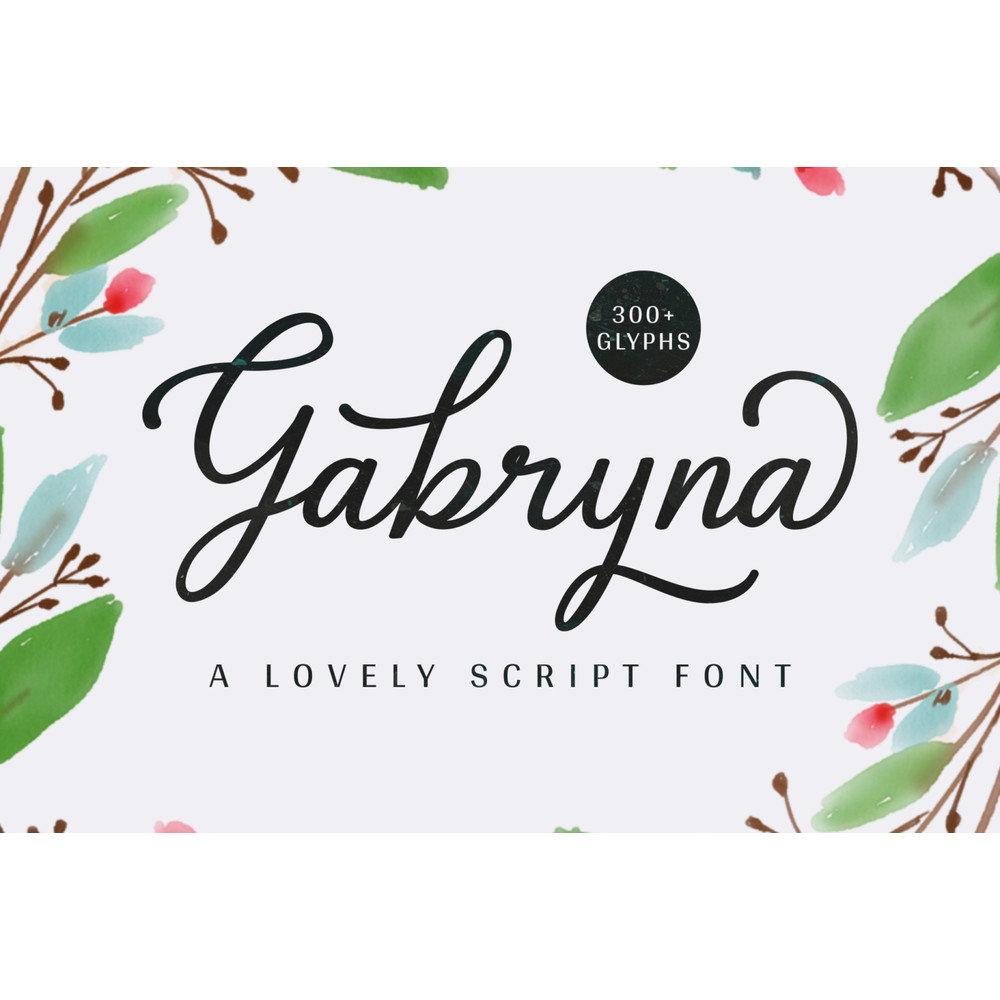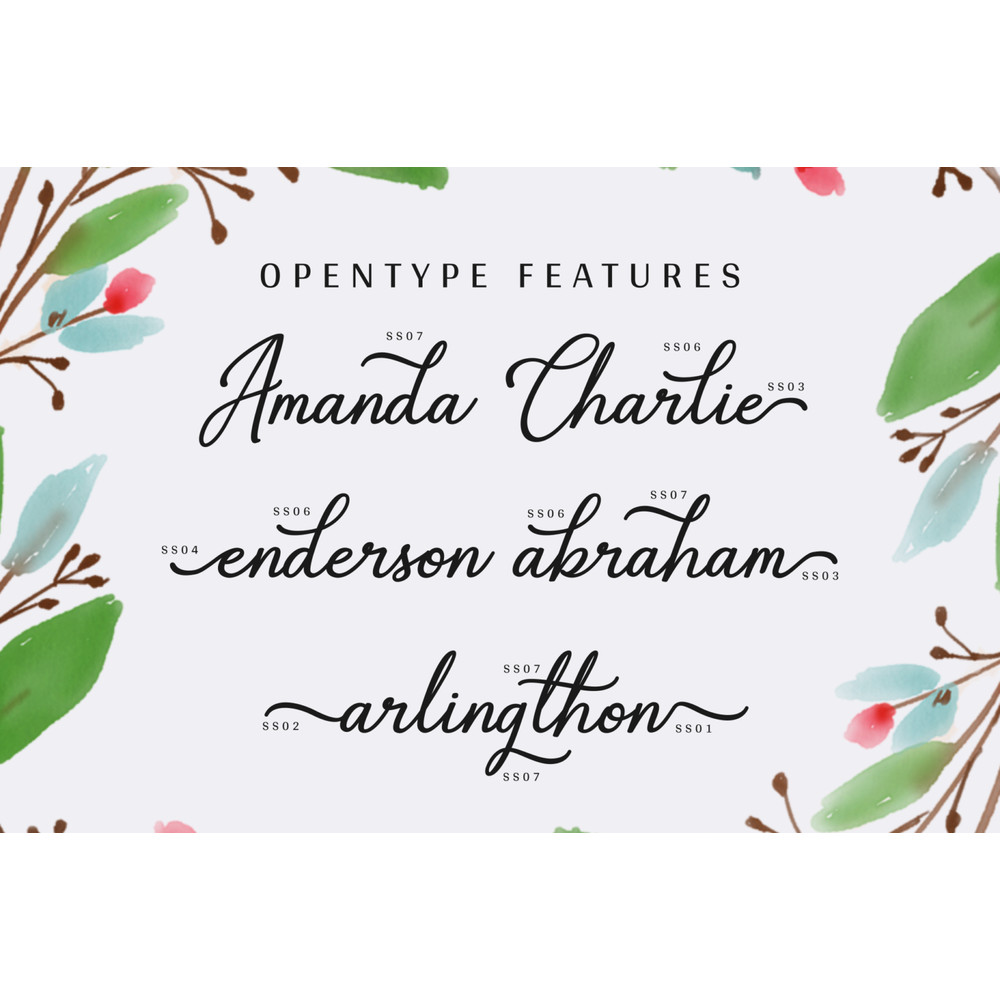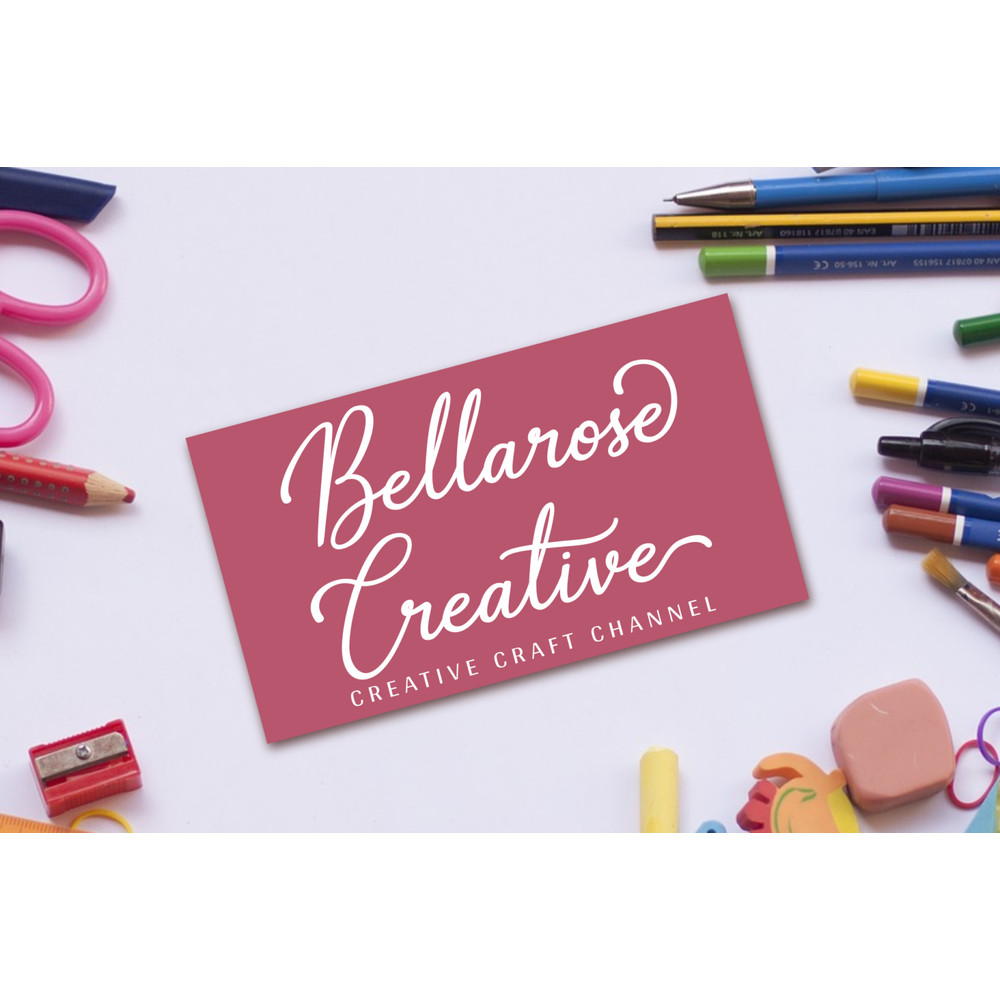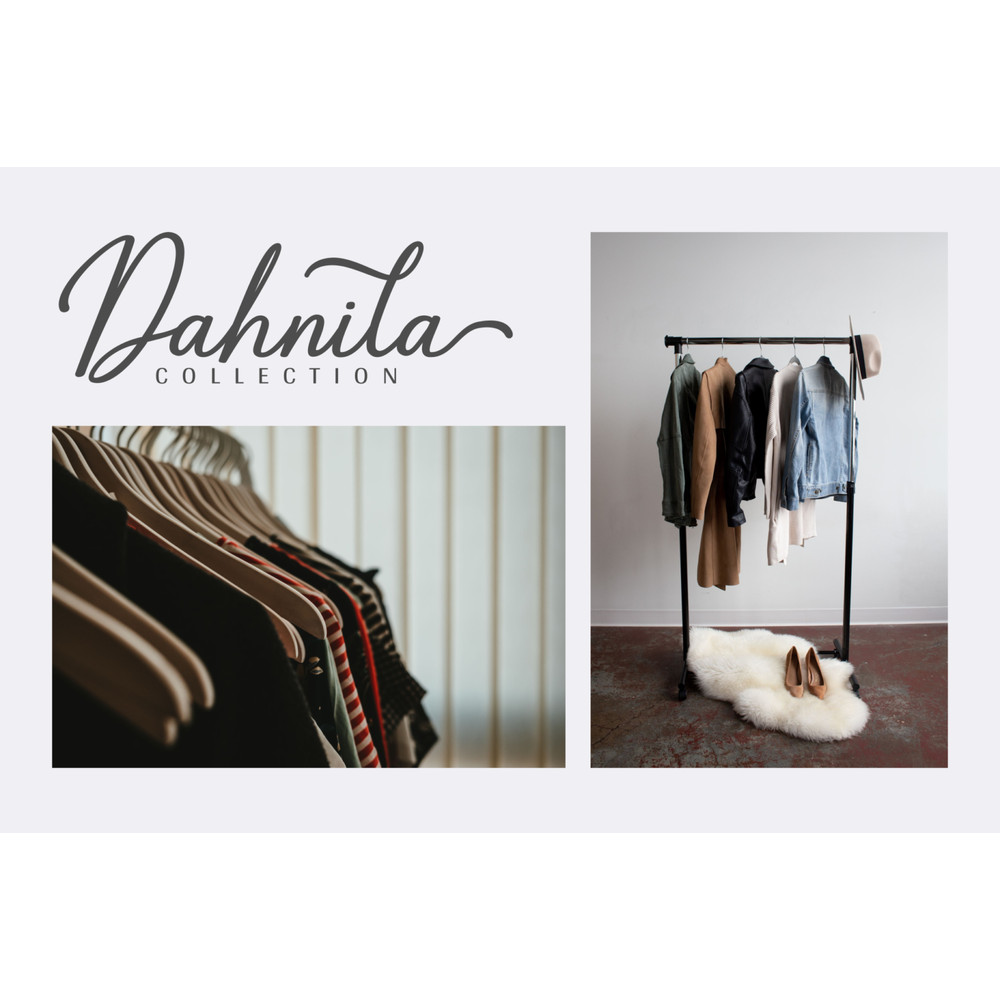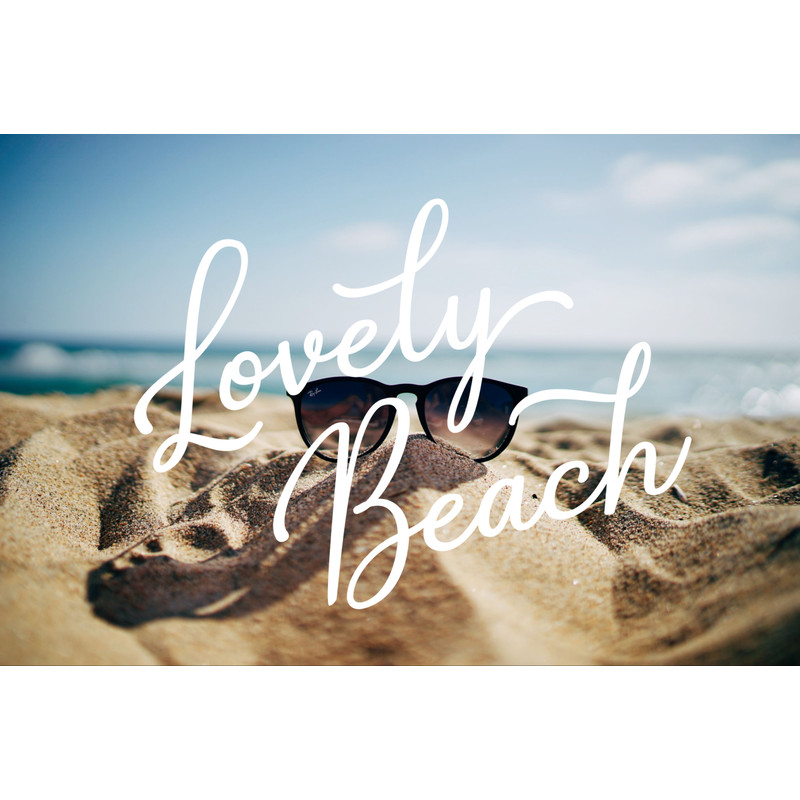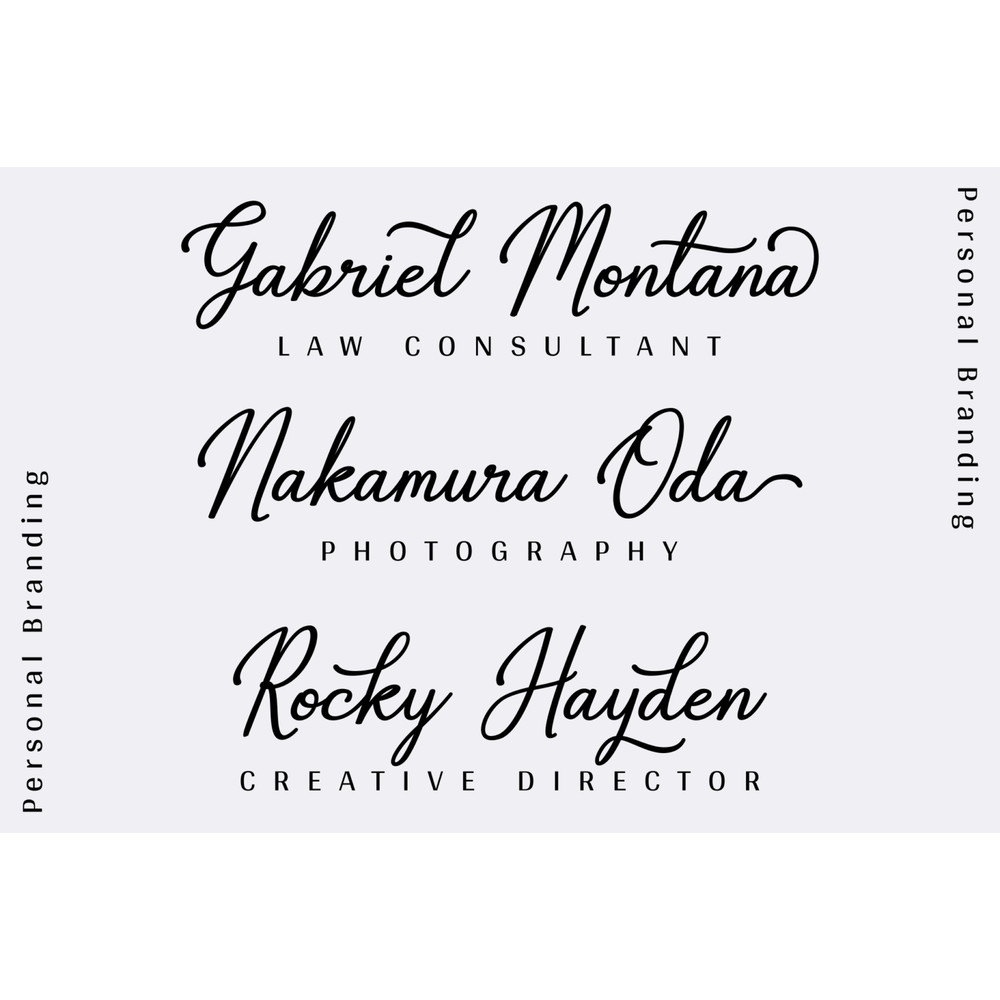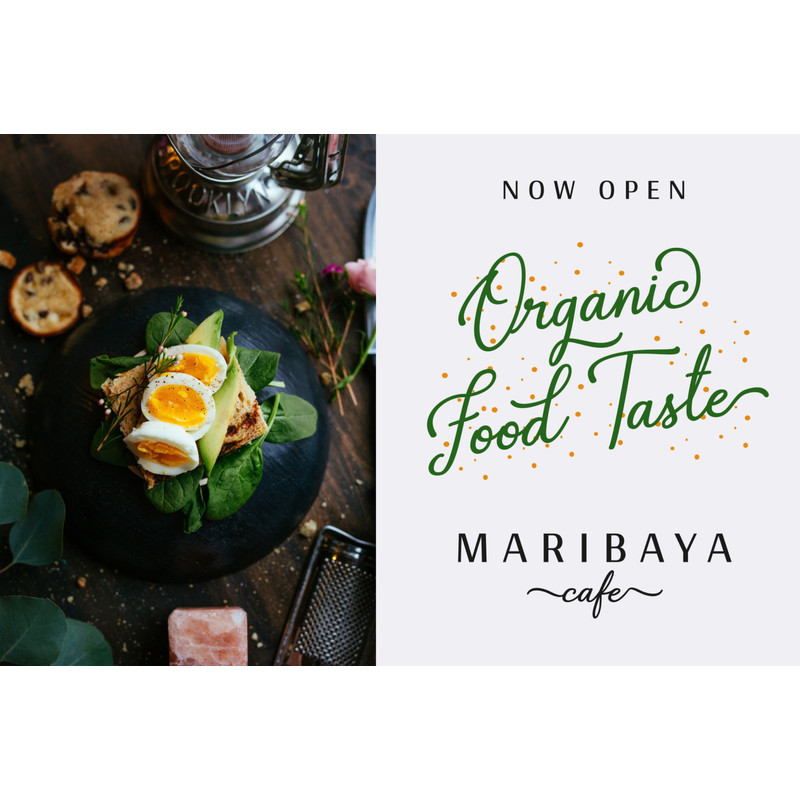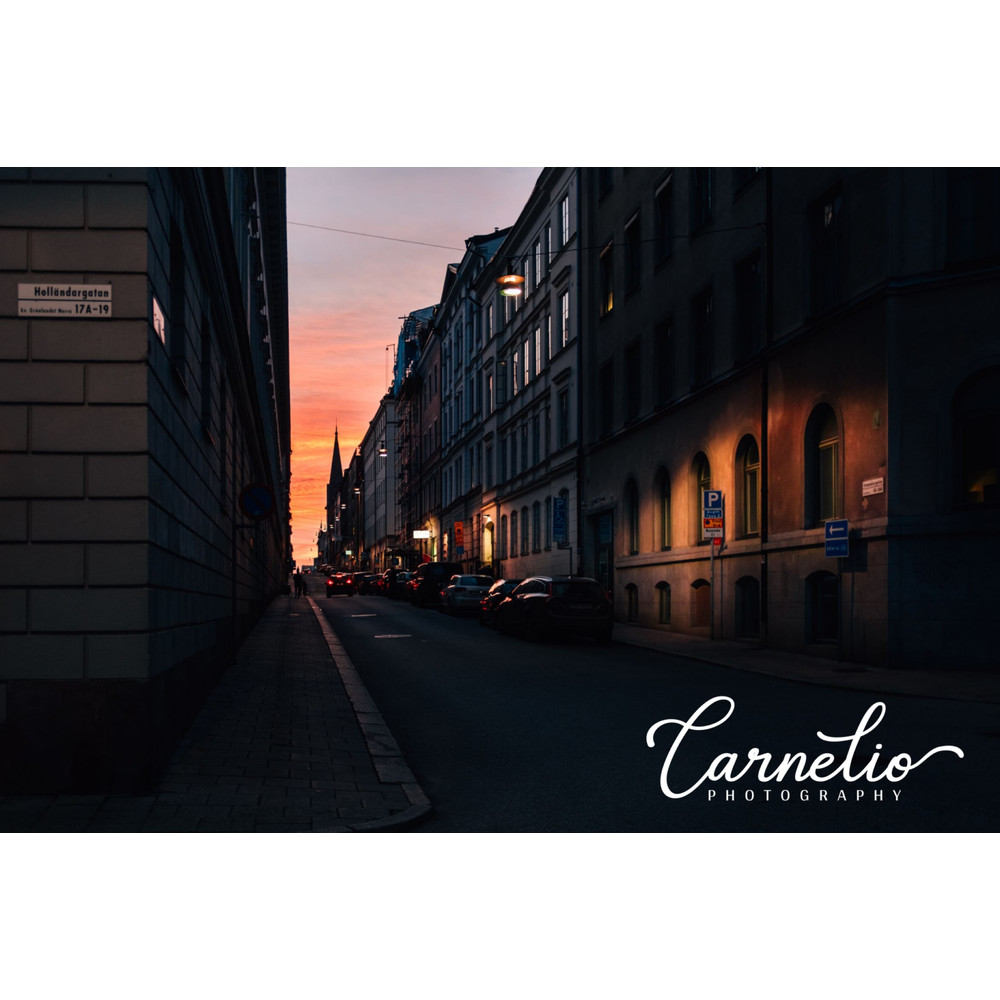
Hello everyone, introducing our new font called “gabryna”.
Gabryna is a calligraphy font with some alternates characters that make a lovely design look. It comes with 324 glyphs included standard characters, multilingual support, ligatures, and alternates that can be used to make your design more beautiful.
Gabryna is very good for logos, product packaging, wedding invitations, branding, headlines, signage, labels, signatures, book covers, posters, quotes and much more.